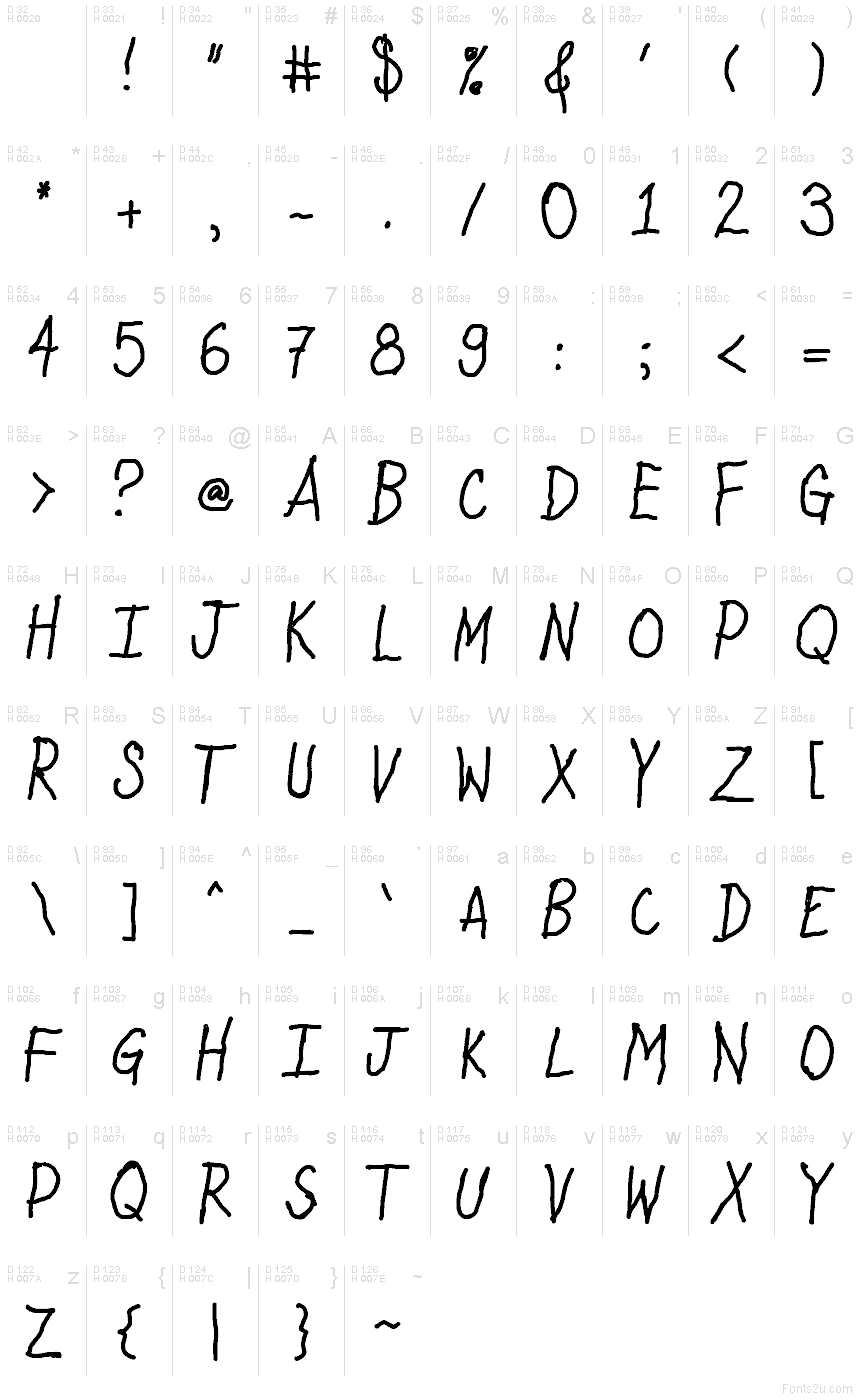
Arkinthor Hands Caps Heavy
Arkinthor Hands Caps Heavy font by The Branded Quotes is a condensed handwritten font with a rough texture and rustic charm. Its uneven alignment and handcrafted appearance give it an expressive, casual tone perfect for informal projects. This free handwritten font effortlessly conveys a unique artistic flair.